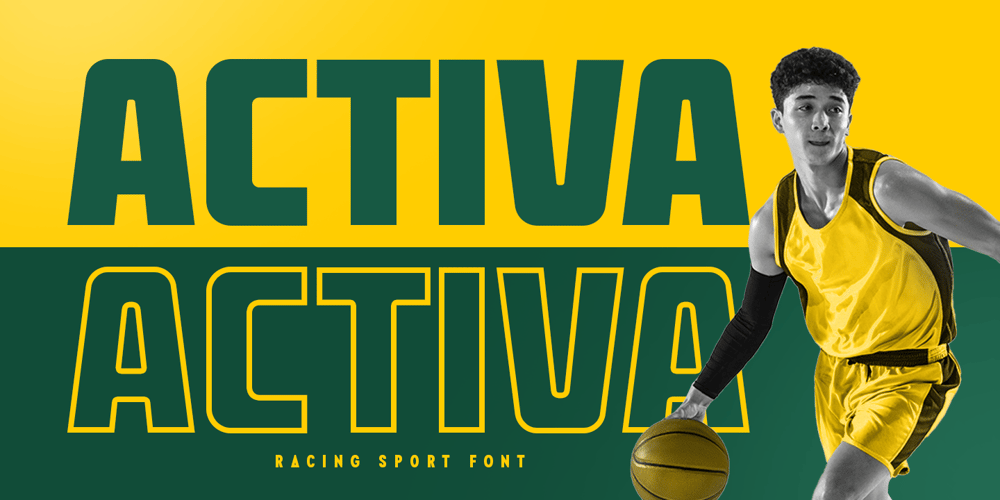
Activa Font Family was designed by Zamroni Hamzah and published by Sensatype Studio. Activa contains 5 styles and family package options. Activa Racing Sport font are prepared special for logo, action, bold, racing, and sport design needs, that created special for Logo, Title and more stand out typography for sport and action. It’s so perfect to add your style and headline overview for sport, racing, technology, actions, and fighting theme. And specially for this font, we crafted 5 alternates style and ready for bold action style and modern feels so enjoy to create any project that will show your main idea out.Activa – Racing Sport font ready with: Ready 5 Alternative Styles 4 files format already Preview as a inspirations that you can do with Activa font Ready with All Uppercase characters Wish you enjoy our font. 🙂